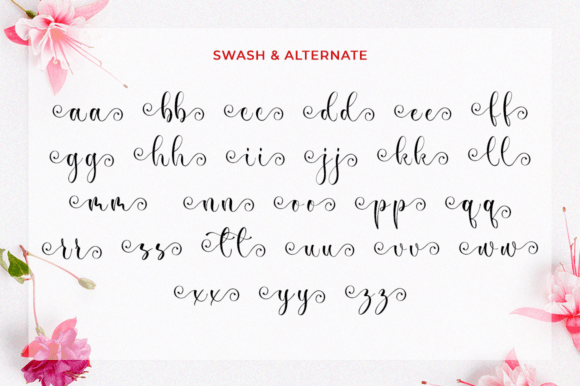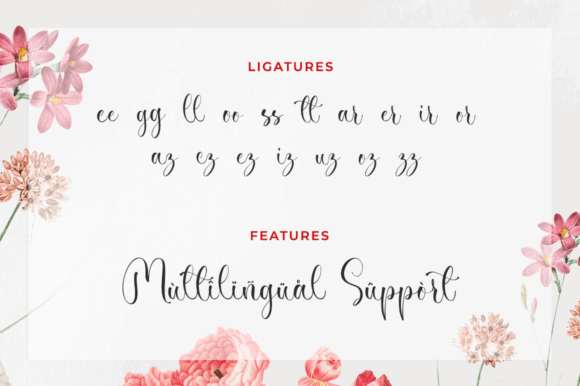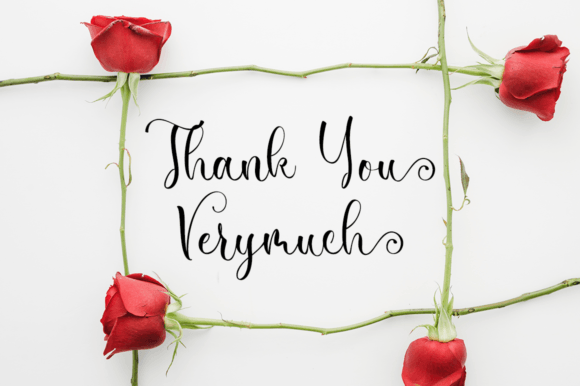
About Seraphime Font
Seraphime is a beautiful and elegant script font. Its modern and classy look makes it the perfect font for creating outstanding DIY projects! This font is PUA encoded which means you can access all of the glyphs and swashes with ease! It features a varying baseline, smooth lines, gorgeous glyphs and stunning alternates.